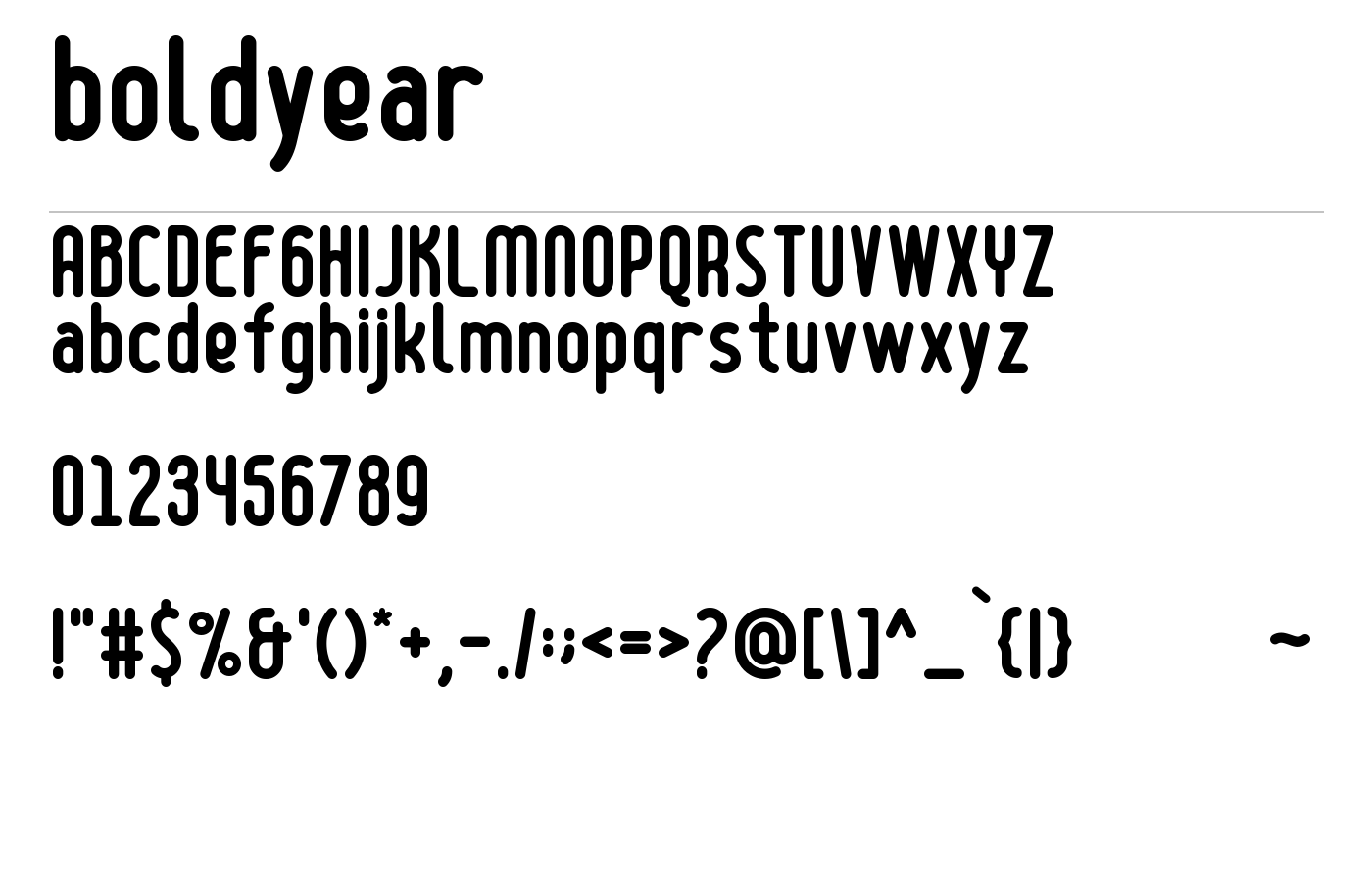
Boldyear is a condensed sans serif font with a modern, rounded style featuring smooth curves and consistent stroke width. Its tall x-height and slightly quirky letterforms give it a friendly yet confident personality, making it ideal for bold headlines, branding, and creative projects that want to stand out with a clean but playful touch.
boldyear Font